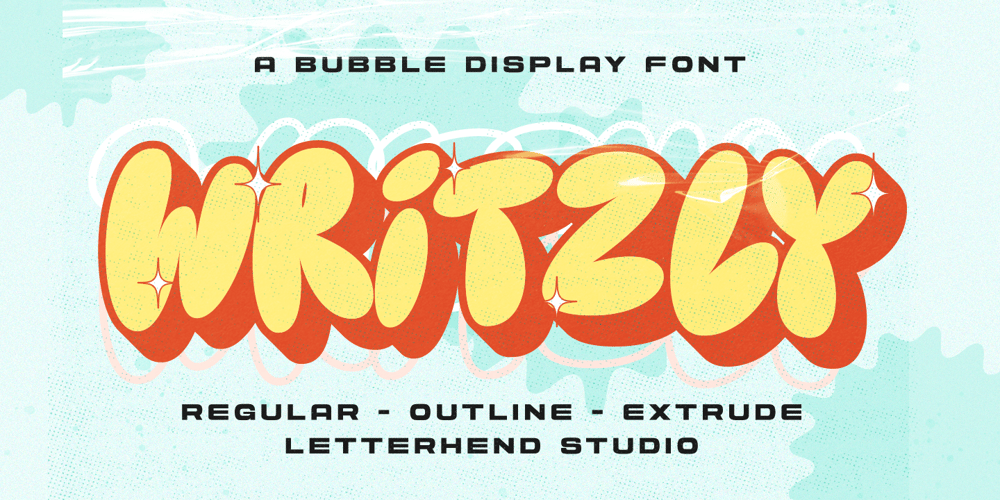
Writzly
Writzly font
Writzly Font Family was designed by Hendry Juanda and published by Letterhend. Writzly contains 3 styles and family package options. Let’s Writzly font add a fun feels of personality to your designs! This fun and whimsical font with graffiti street art style. Its rounded, bubbly letters give it a friendly and approachable feel, while its cartoon-like appearance adds a touch of humor and playfulness. Use Kinder Stone to create logos, posters, and other designs that need a dash of personality and fun.Features :Uppercase & lowercaseNumbers and punctuationMultilingualPUA encoded